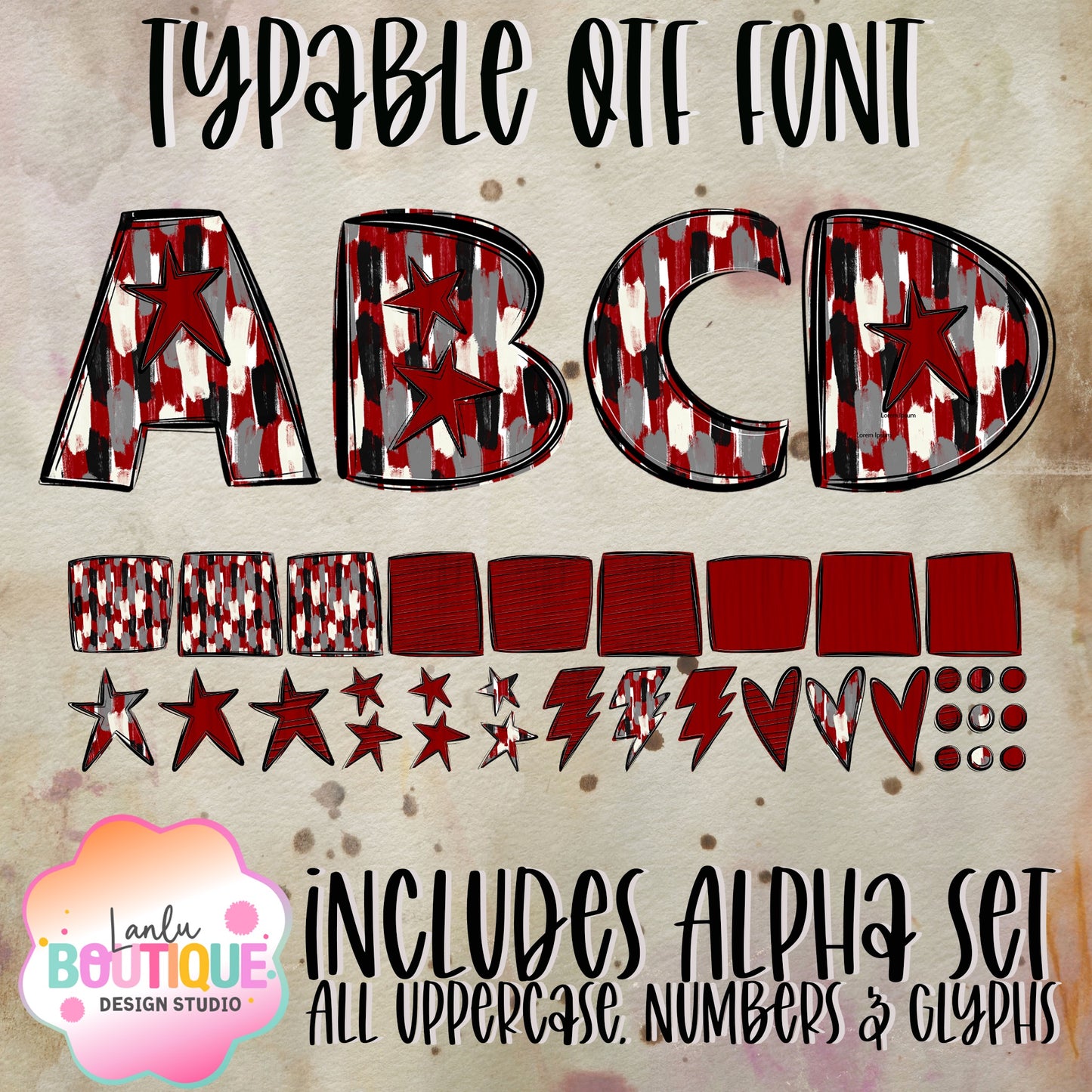
Maroon Paintbrush Spirit OTF Typable Alpha
The Paintbrush Spirit OTF font offers a sophisticated, typable design that captures the fluidity of hand-painted brush strokes. Ideal for creative projects seeking a refined yet expressive style, it brings an artistic flair to branding, invitations, and more.